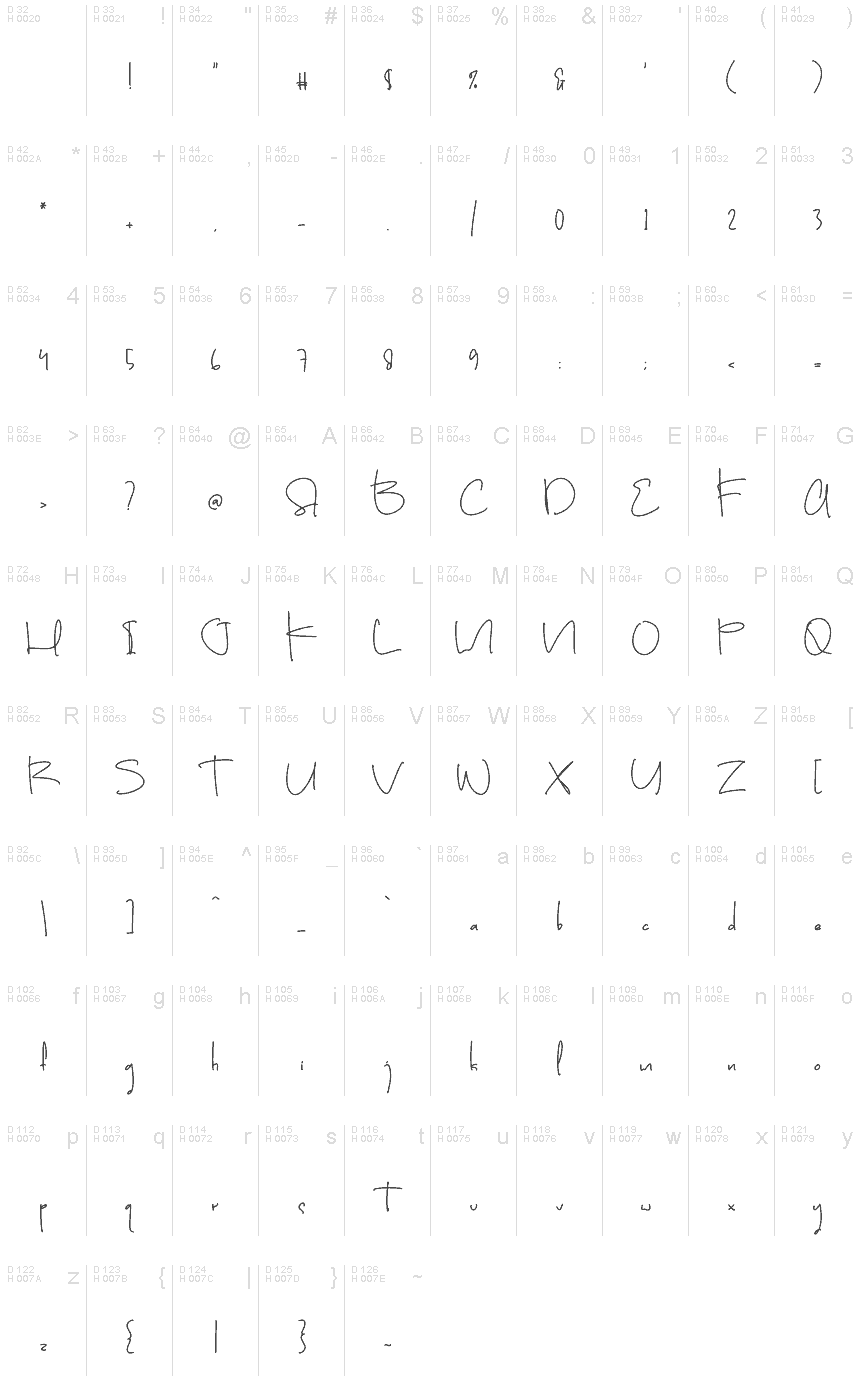
Arlovittsa
Arlovittsa is a minimalist handwritten sans serif font designed by Letterena Studio for users who seek an effortless signature for their designs and who’d like to include an elegant touch to their texts.
The font can be used for packaging and labels, book quotes and many other texts or titles.